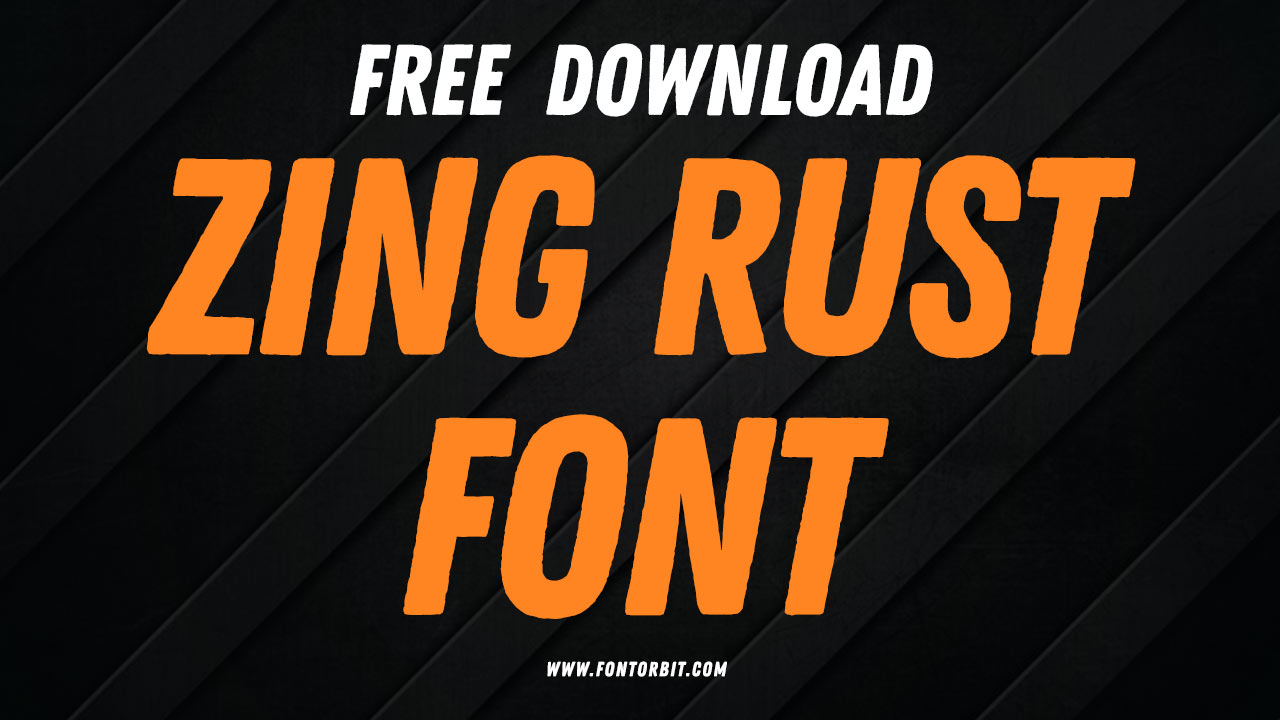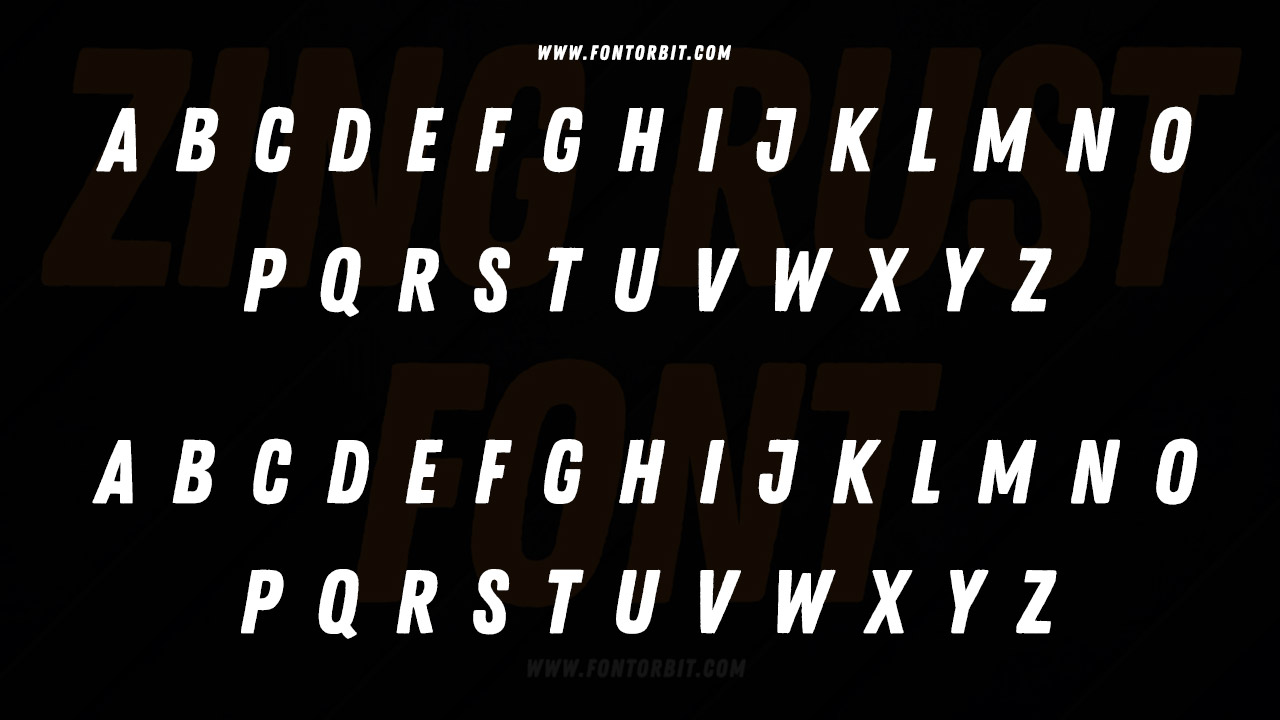
The Zing Rust Font Family, designed by Svetoslav Simov and Stan Partalev and published by Fontfabric, is a comprehensive and creative typeface system known for its handcrafted, rustic charm.
With 238 styles in total, including a few free options, Zing Rust brings a unique blend of modern and vintage elements to your design projects.
The Zing Rust Font Family
- Zing Rust Base
- Zing Rust Base Shadow
- Zing Rust Base2 Line
- Zing Rust Base2 Line Shadow
- Zing Rust Shadow
Zing Rust is a versatile type system that blends the handmade appeal of vintage wood type with contemporary functionality. It offers a range of styles, from decorative icons and ribbons to clean sans-serifs and scripts, all with an authentic, handcrafted feel.
- Packaging
- Advertising
The Zing Rust Font Family stands out with its extensive range of styles and unique handcrafted elements. Its versatility makes it an excellent choice for creative projects requiring a rustic, vintage touch, ensuring your designs capture attention and convey originality.
1.What Is The Zing Rust Font Family?
Zing Rust is a comprehensive typeface system designed by Svetoslav Simov and Stan Partalev. It features 238 styles, including six free options, and is known for its handcrafted, rustic design.
2.How To Choose The Right Style In The Zing Rust Font Family?
Choose based on your project needs—whether you require bold, shadowed effects, clean lines, or decorative icons. The variety of styles allows for flexibility in achieving different visual effects.
3.What Are The Key Features Of The Zing Rust Font Family?
The family includes a diverse range of styles, from base fonts to shadowed and lined versions. It also features script and sans-serif options, along with decorative elements like icons and ribbons.
4.How To Use The Zing Rust Font Family In Design?
Use Zing Rust for creating standout logos, headlines, packaging, advertising, and posters. Its handcrafted aesthetic adds a unique touch to various design applications.
5.What Are The International Language Support Options For The Zing Rust Font Family?
Zing Rust supports a wide range of Latin-based languages, making it suitable for diverse design projects with international text needs.